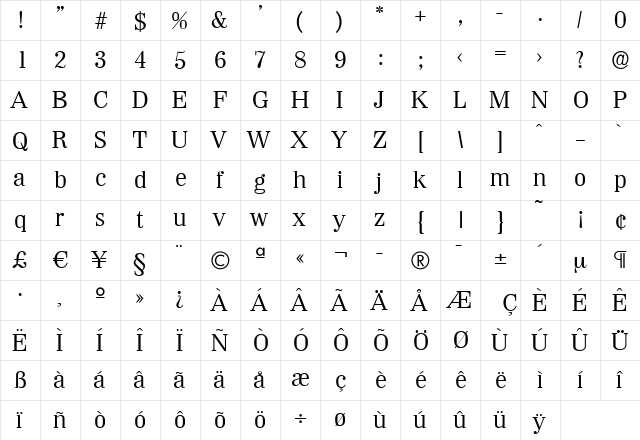
FredBecker Regular Font Preview
FredBecker Regular
FredBecker Regular Font Details
Design Context for FredBecker Typeface
FredBecker is a composed and adaptable typeface that performs quietly and consistently across a wide range of design contexts.